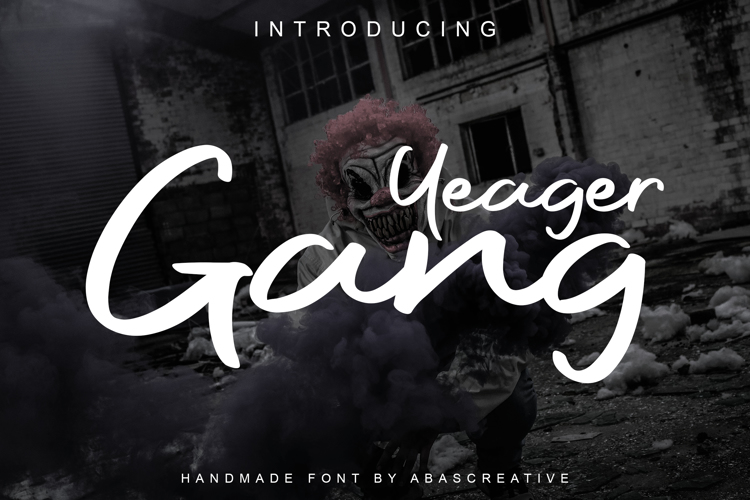
Yeager Gang Font
Yeager Gang is high quality script typeface by bold modern design.
This typeface works really well for Logos and Apparel design, its also great for creating Prints and Merchandise,
as you can use the illustrative qualities of the shape to create an art piece.
– Yeager Gang Modern Script